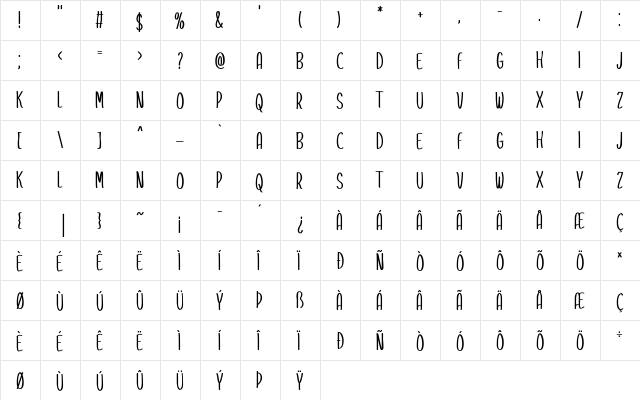
Bonrin Regular
Design Context for Bonrin Typeface
Bonrin is a composed and adaptable typeface that performs quietly and consistently across a wide range of design contexts.